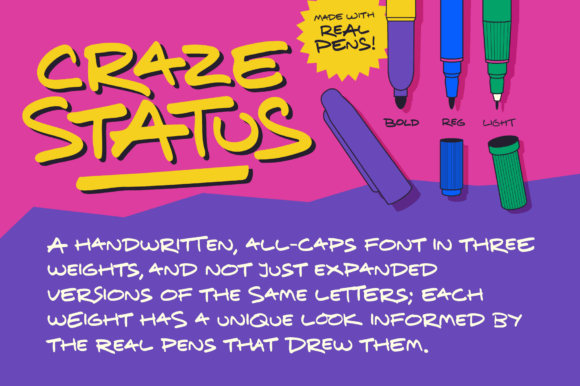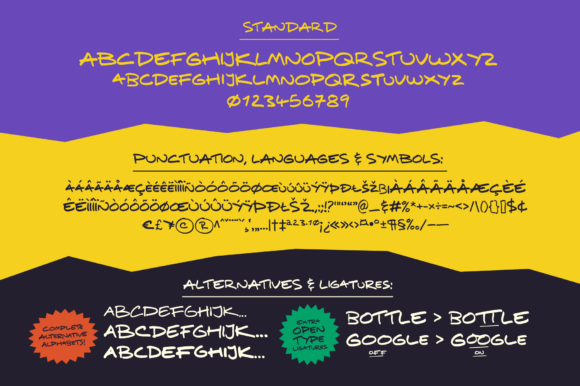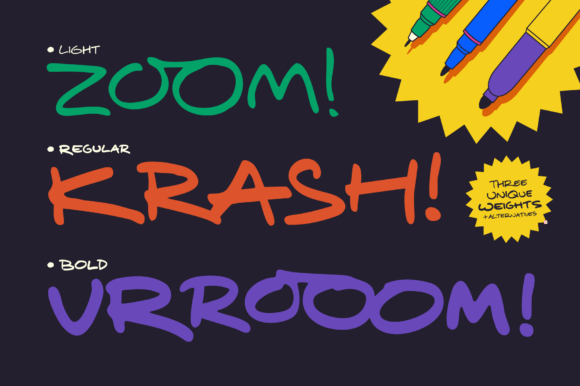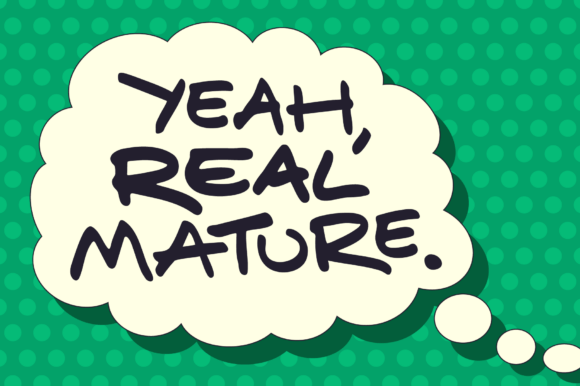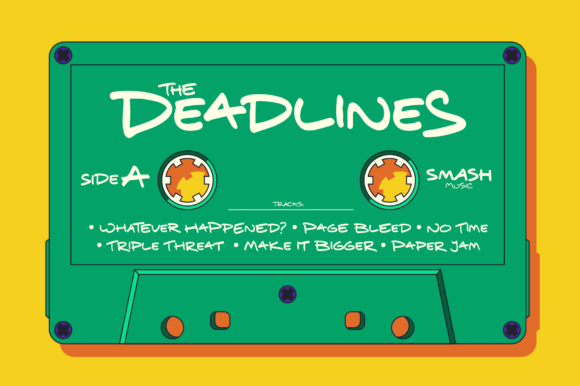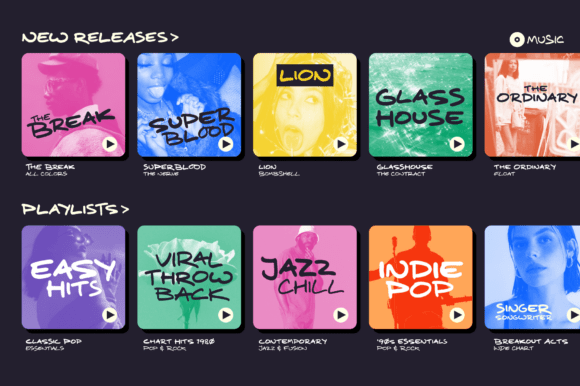
Craze Status Font: The Ultimate Handwriting Font for Designers and Crafters
Are you tired of using the same old fonts in your designs? Look no further than Craze Status, a versatile handwriting font that brings a unique and authentic touch to your work. Inspired by popular culture and created using real marker pens, Craze Status is the perfect choice for designers and crafters looking to add a human touch to their projects.
A Font with a Personality
Craze Status is more than just a font – it’s a statement. With its roots in comic book lettering and a loose, freehand flow, this font is perfect for adding a personal touch to your designs. Whether you’re working on a comic book, album cover, music video, animation, or movie title, Craze Status is the ideal choice. Its all-caps design and unique uppercase and lowercase characters make it a standout in any project.
Three Unique Weights for Added Versatility
One of the standout features of Craze Status is its three unique weights: light, regular, and bold. Each weight was written separately, giving them an individual appearance informed by the pen that drew them. This means that you can use Craze Status in a variety of contexts, from subtle background text to bold headlines. The weights are designed to complement each other, providing a truly analogue look that’s perfect for designers and crafters.
Authentic and Analogue Flair
Craze Status is all about bringing an authentic, analogue flair to your designs. In an age where digital fonts can feel cold and impersonal, Craze Status is a breath of fresh air. The font’s imperfections and quirks are what make it so charming, giving your designs a human touch that’s hard to replicate with digital fonts. Whether you’re creating a DIY-style project or a professional design, Craze Status is the perfect choice.
Multilingual Support and More
Craze Status is more than just a font – it’s a comprehensive design tool. In addition to its three weights, the font includes unique uppercase and lowercase characters, numerals, and multilingual support. This means that you can use Craze Status in a variety of languages and contexts, from English to Spanish, French, and more.
Craze Status is the perfect choice for designers and crafters looking to add a personal touch to their projects. Whether you’re creating a handmade card, a custom illustration, or a professional design, Craze Status is the ideal font. Its versatility and charm make it perfect for a wide range of projects, from DIY-style crafts to professional designs.
Tips for Using Craze Status
Here are a few tips for getting the most out of Craze Status:
- Experiment with different weights: Try using the light weight for subtle background text or the bold weight for headlines.
- Mix and match: Combine Craze Status with other fonts for a unique and eye-catching look.
- Emphasize the imperfections: Craze Status is all about its imperfections and quirks, so don’t be afraid to let them shine through.
Craze Status is a game-changing font that’s perfect for designers and crafters looking to add a personal touch to their projects. With its unique and authentic flair, three weights, and multilingual support, Craze Status is the ultimate handwriting font. Whether you’re creating a DIY-style project or a professional design, Craze Status is the perfect choice. So why settle for boring, generic fonts when you can add a touch of personality to your work with Craze Status?